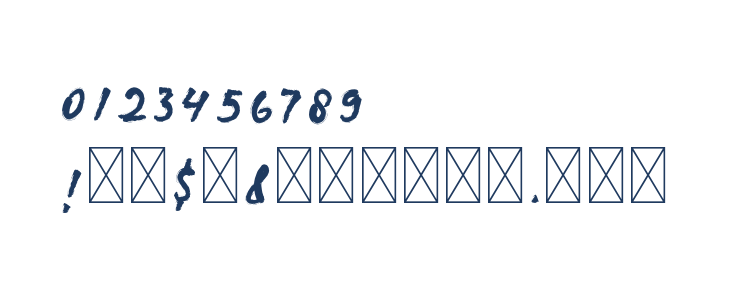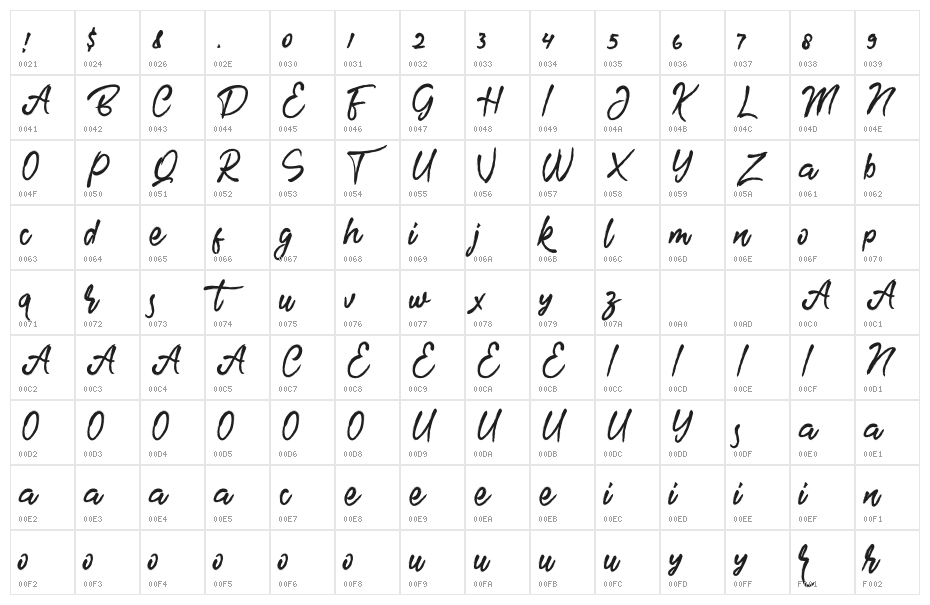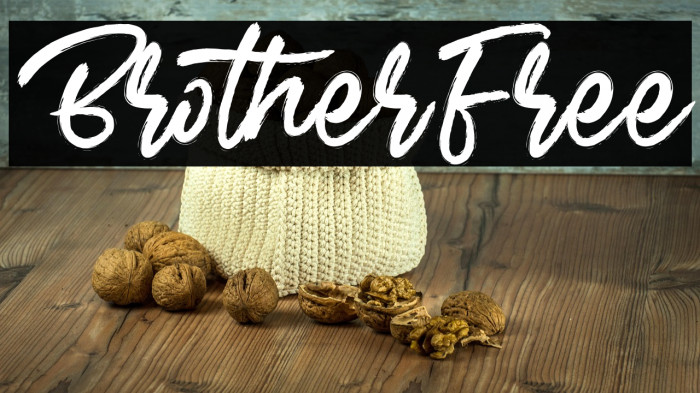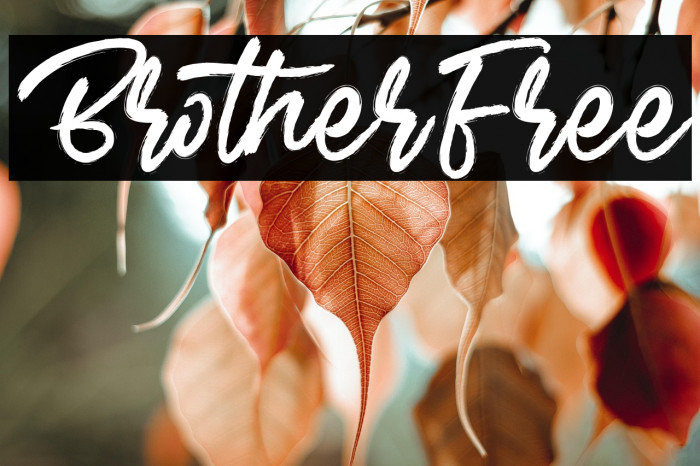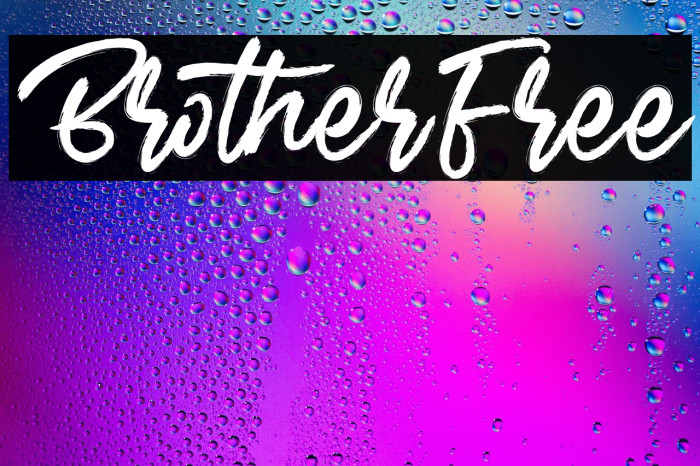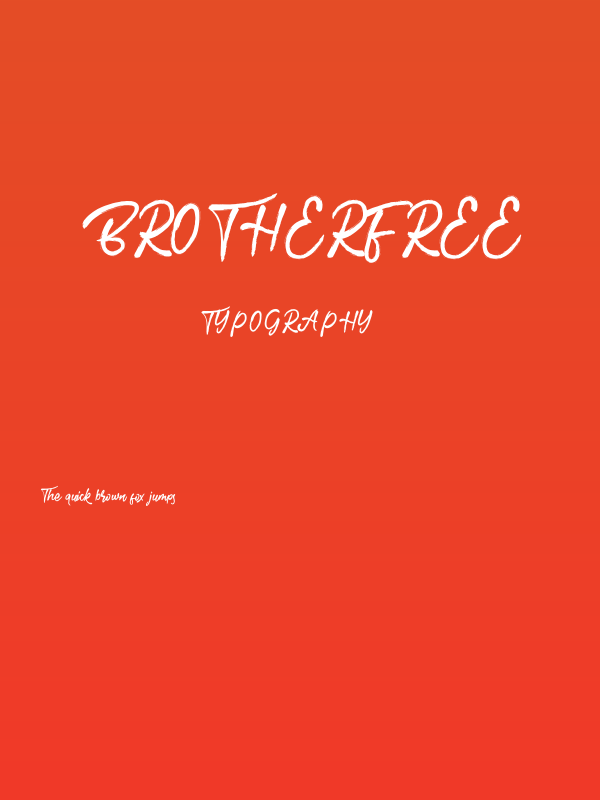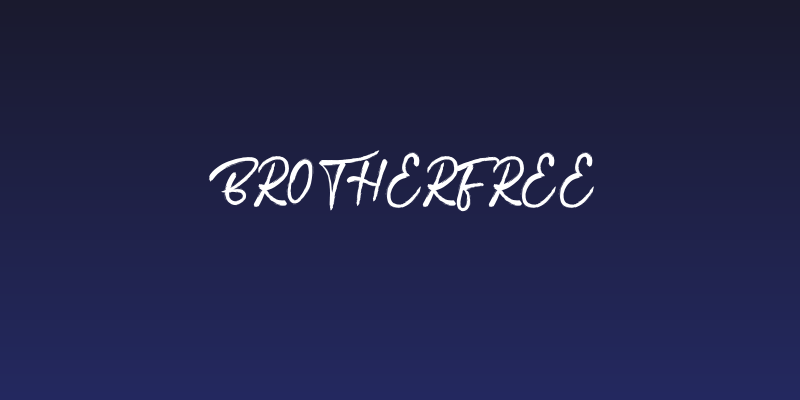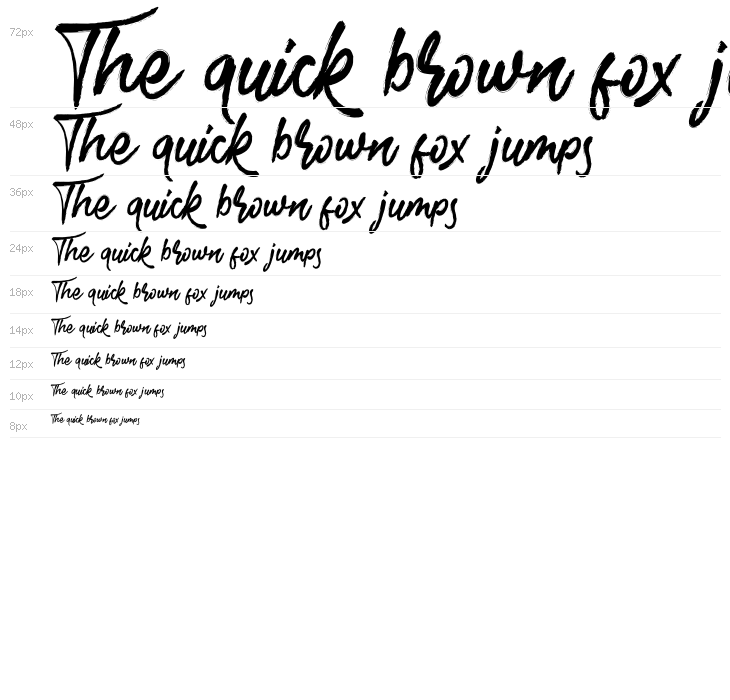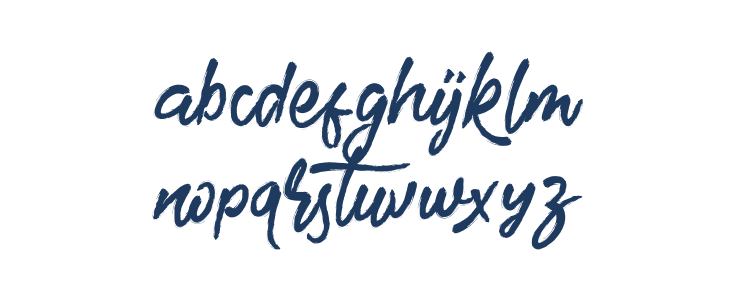
BrotherFree Font
BrotherFree Description
This font features a dynamic and expressive handwritten style, characterized by its fluid and cursive letterforms. The uppercase letters exhibit a smooth, flowing motion with a slight slant, giving a sense of movement and elegance. The lowercase letters maintain this fluidity, with some characters featuring distinctive loops and swashes that add to the overall artistic flair. The numbers are bold and maintain the same handwritten aesthetic, ensuring consistency across all characters. The special characters, although not fully visible, suggest a continuation of the same style. This font is ideal for projects that require a personal touch, such as invitations, greeting cards, or branding materials that aim to convey creativity and individuality.
| Use Case | Logos, Headlines, Creative projects |
| Proposed Projects | Ideal for invitations, greeting cards, branding materials, and creative projects. |